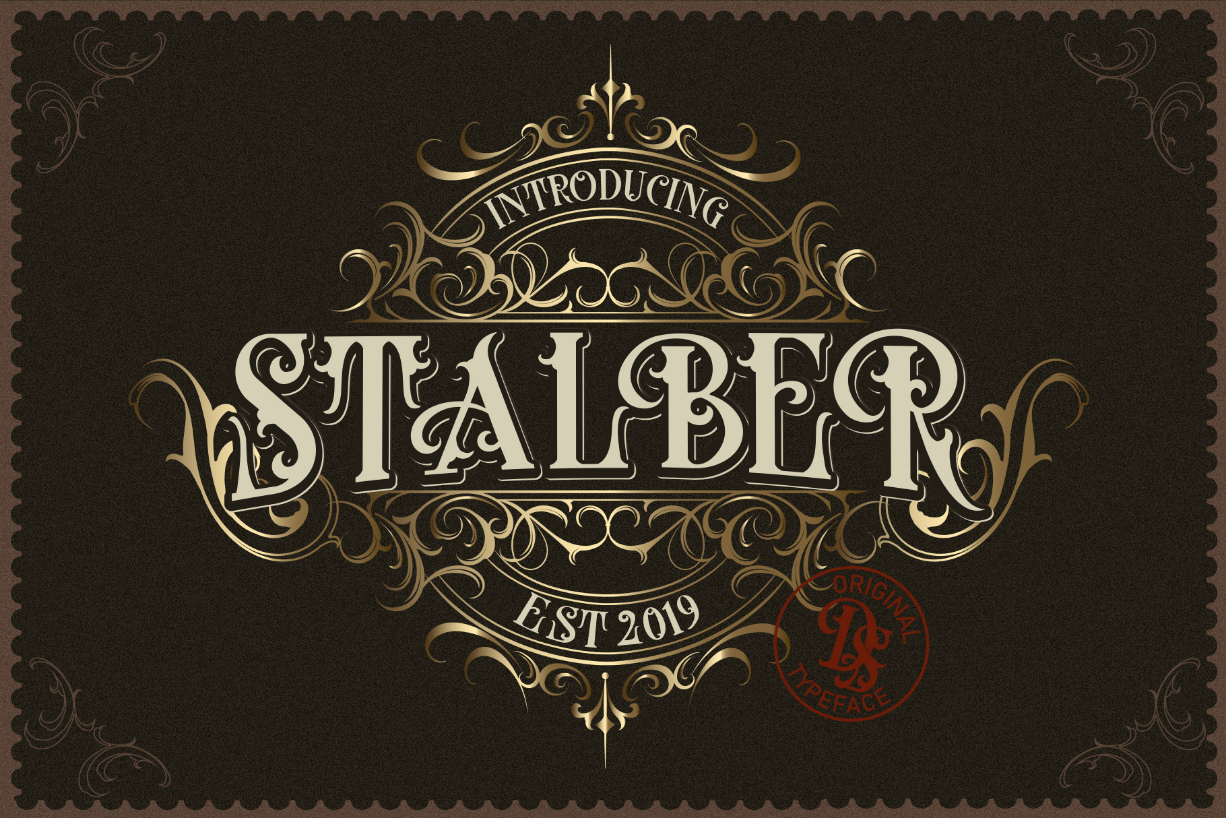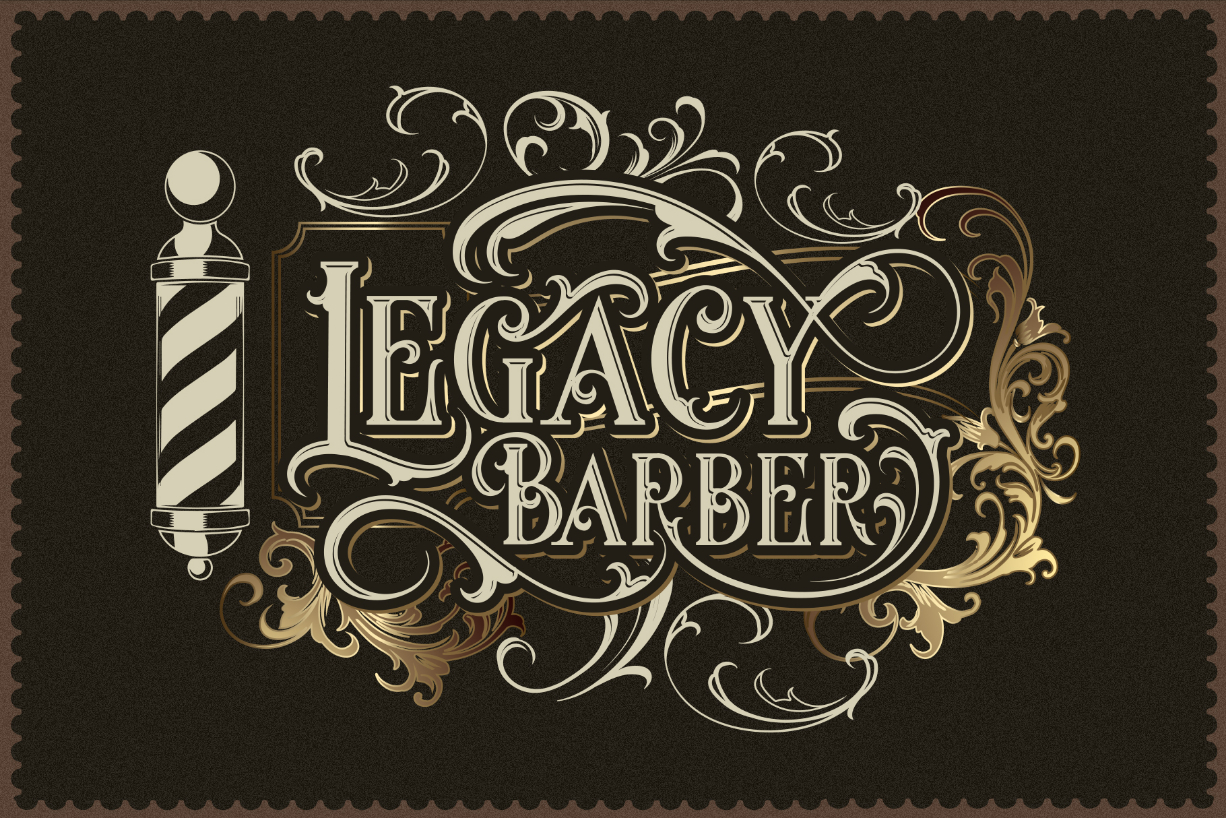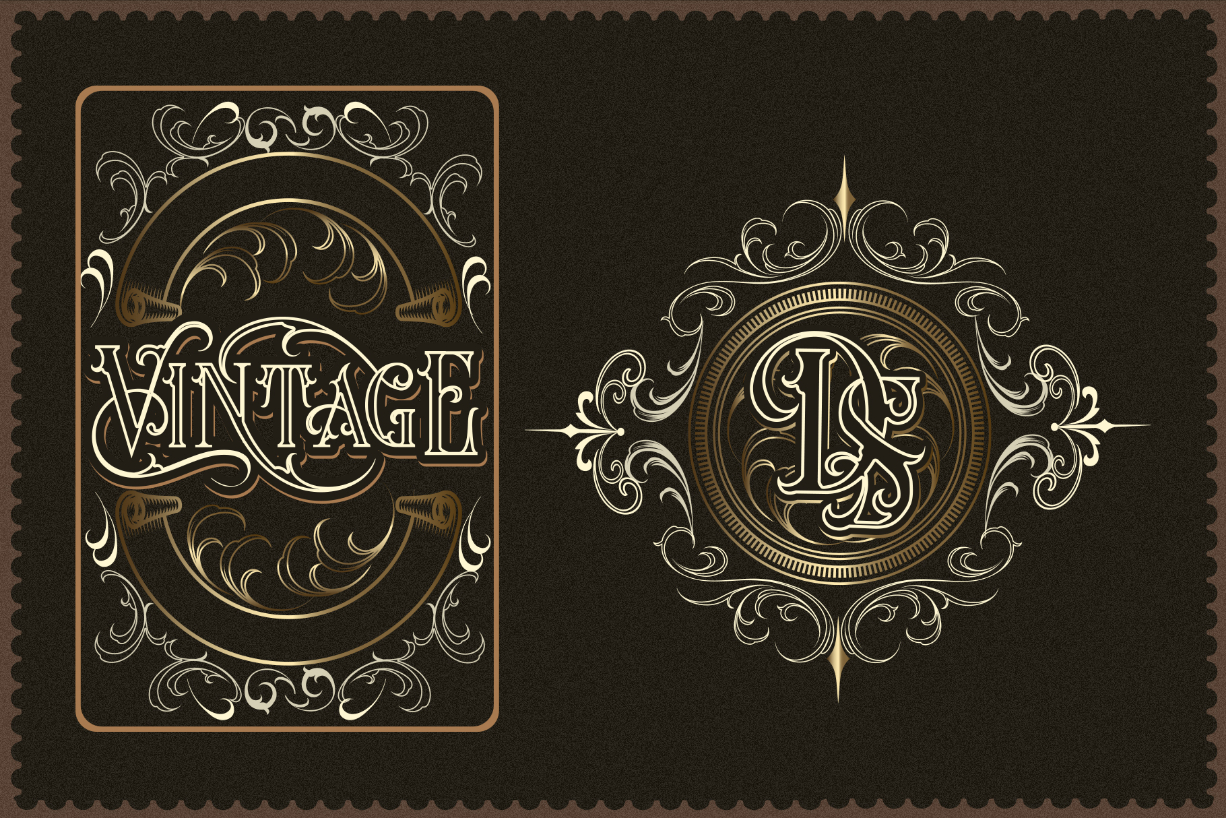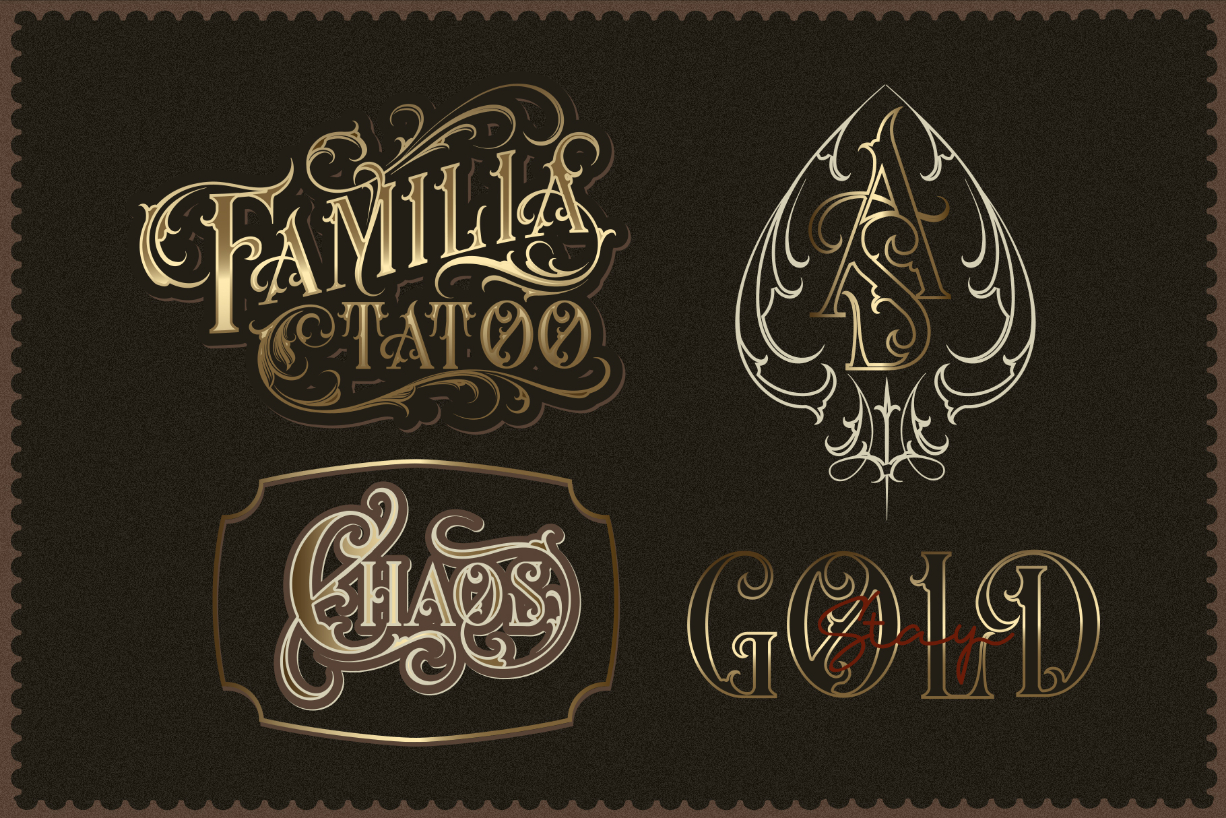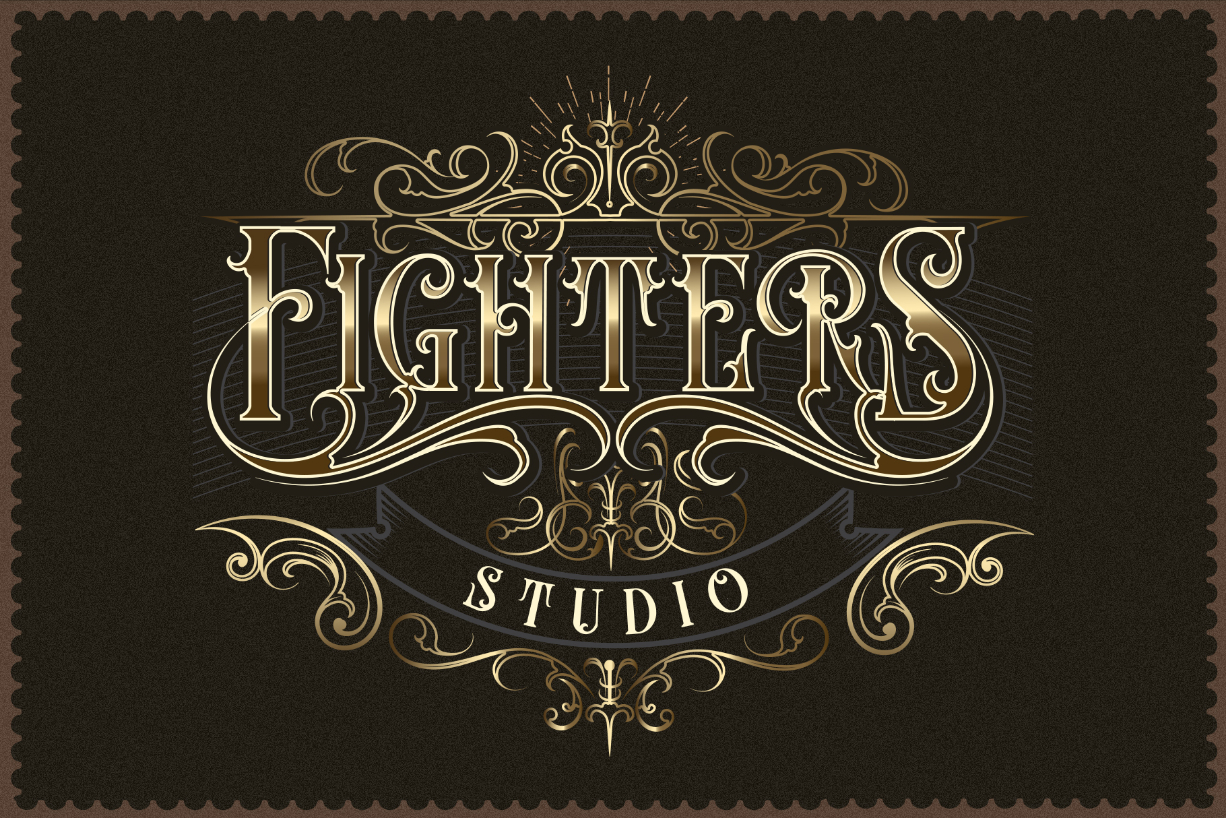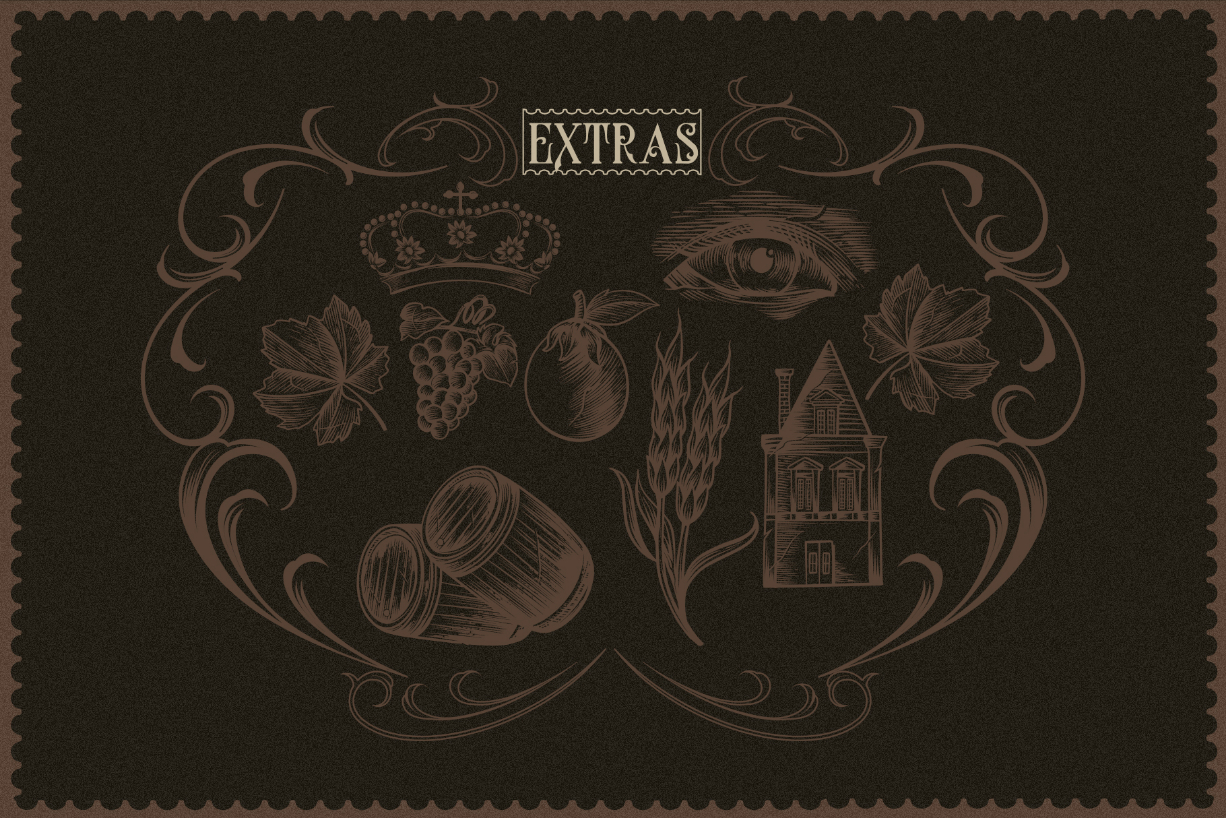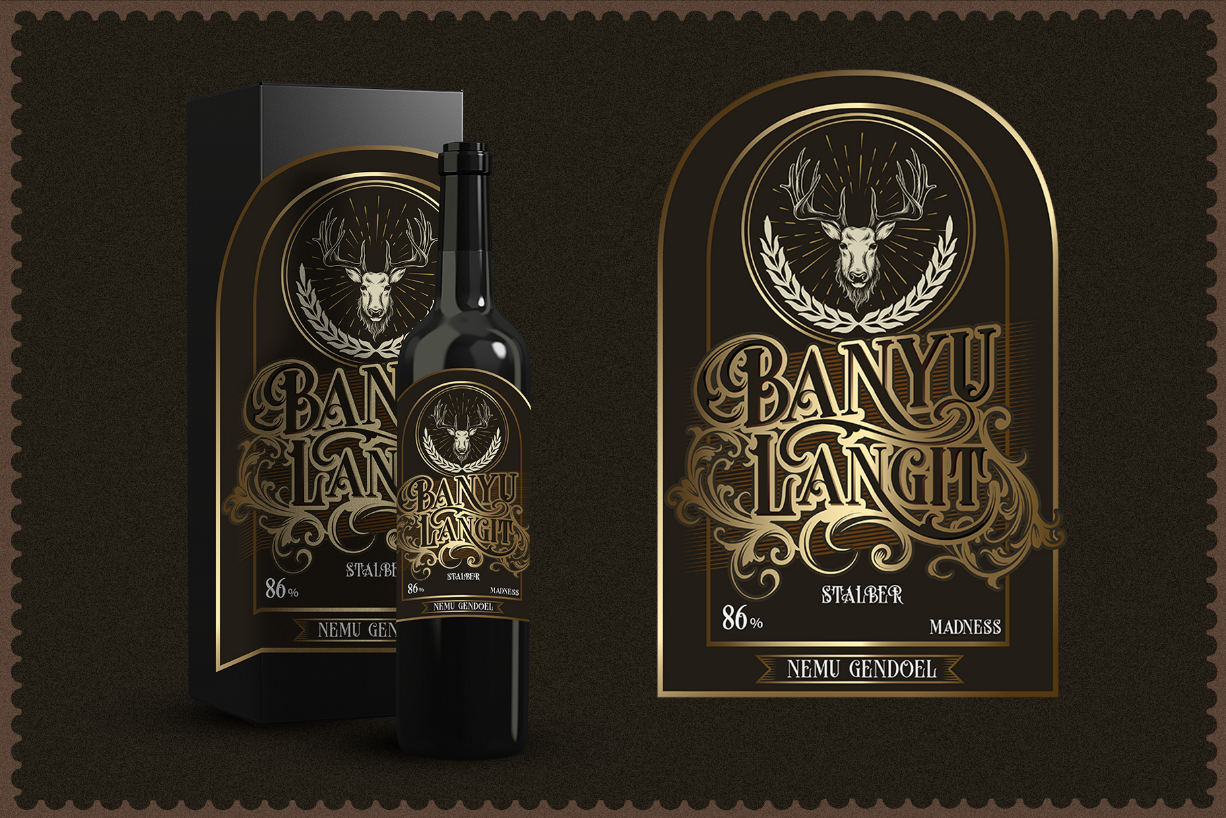
Stalber Font
About Stalber Font
Stalber is an authentic blackletter font. It has a vintage feel, and as a result, it matches a wide variety of designs. Add it to your most creative projects and make them stand out!